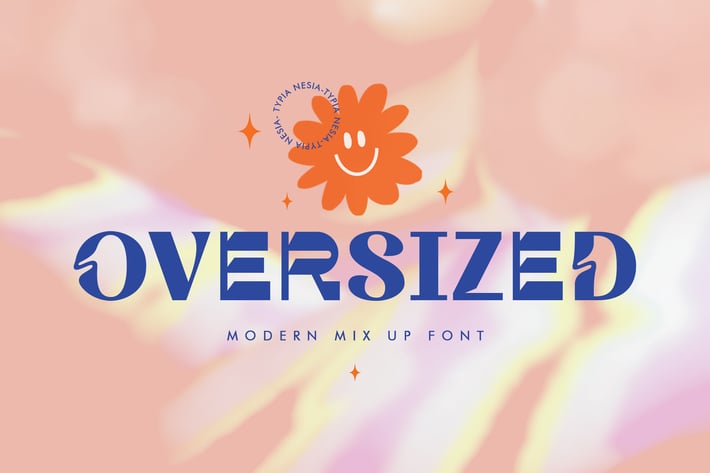
Oversized - Playful Mix Up Sans Serif Display Font
Oversized - Playful Mix Up Sans Serif - Fashion Advertising Branding - Agency Logo Display Font
Oversized Font is perfect for your up coming projects. Such as logo branding, editorial design, sport design, game / gaming industry, music cover and poster, website design, modern advertising design, modern poster quote, book / magazine cover title, special events and any more.